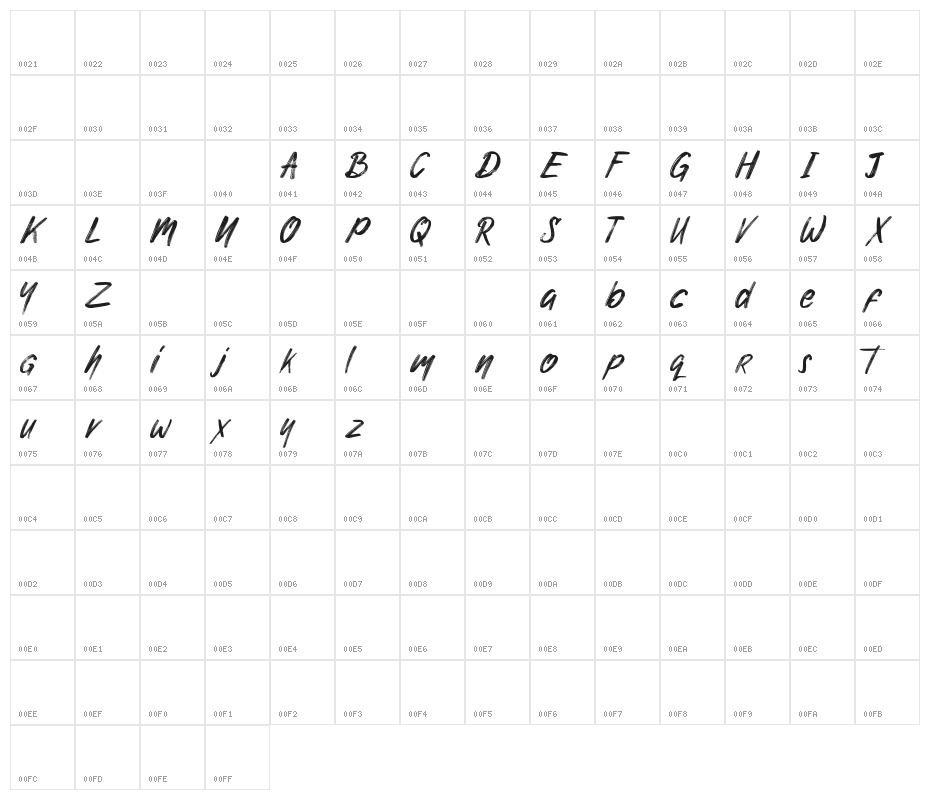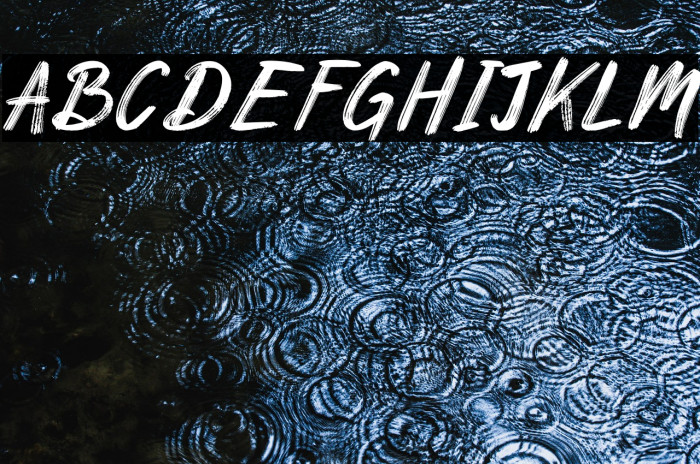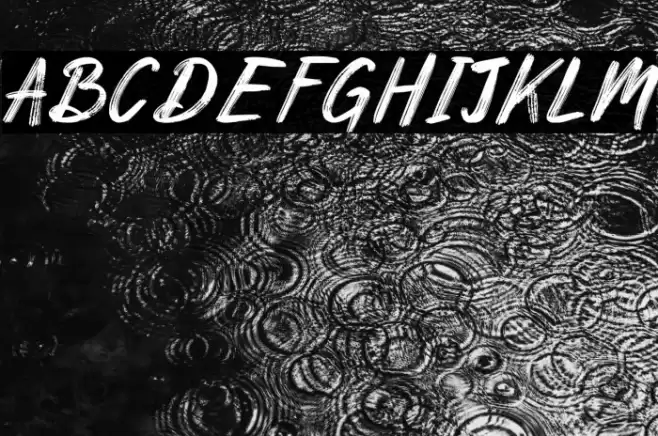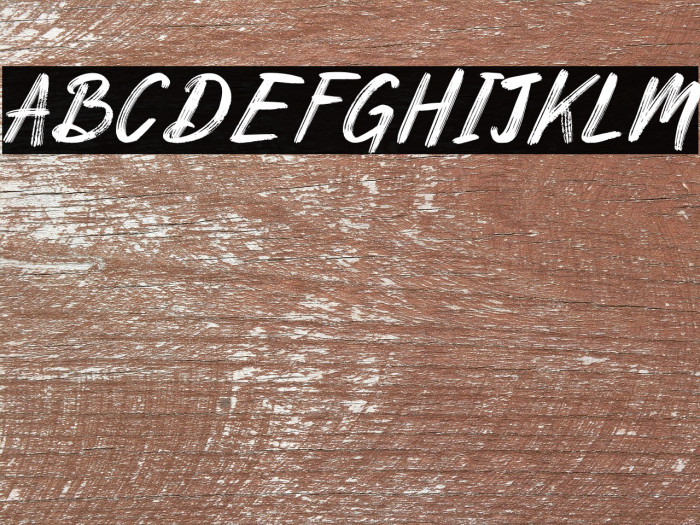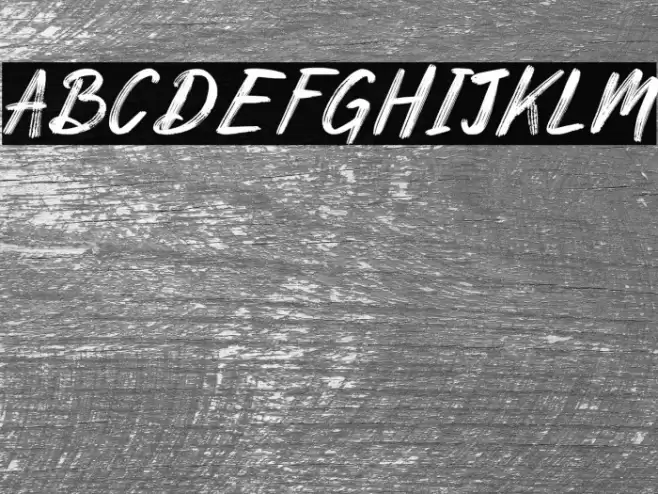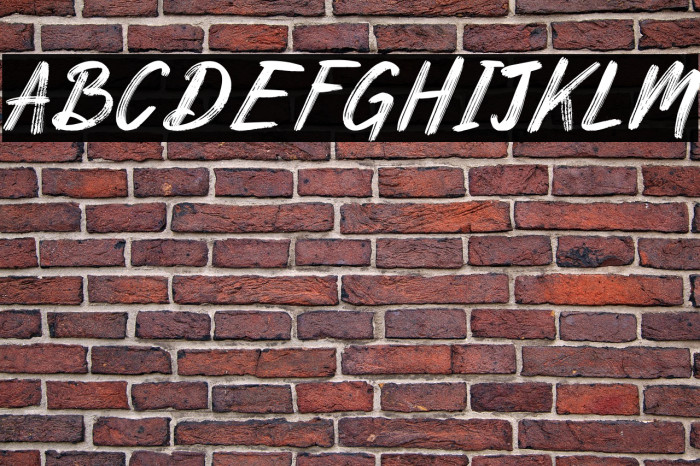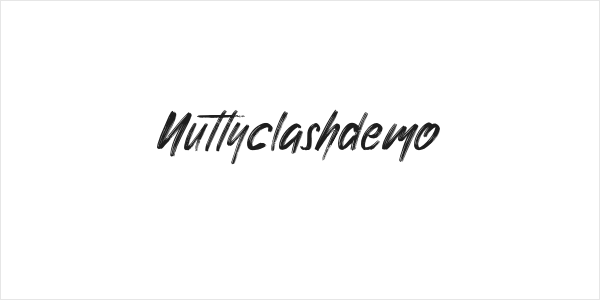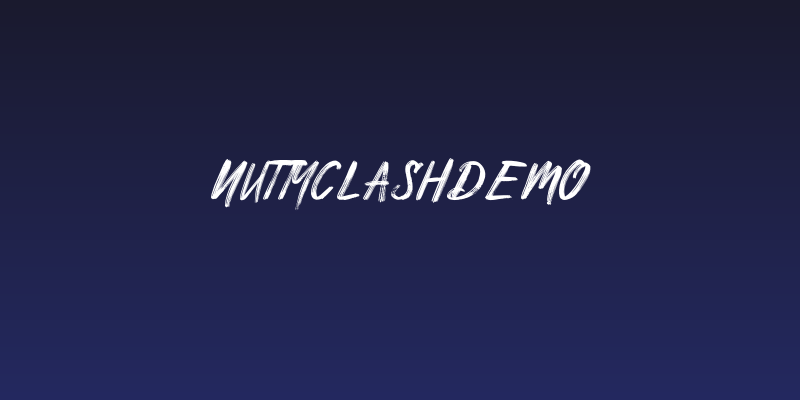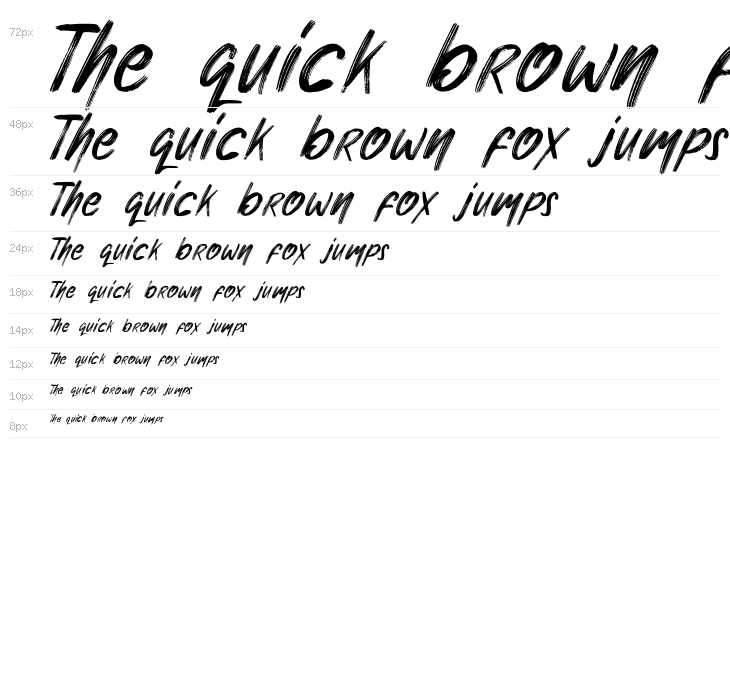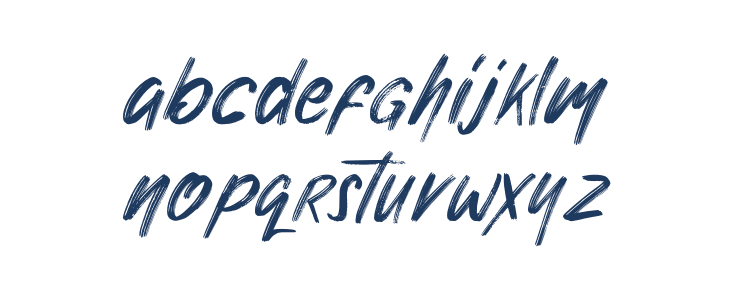
Nuttyclashdemo Font
Nuttyclashdemo Description
This font features a dynamic and energetic brush script style, characterized by its bold, sweeping strokes and textured appearance. The letters are slightly slanted, giving a sense of movement and fluidity. The uppercase and lowercase letters maintain a consistent style, with a rough, hand-drawn texture that adds a casual and artistic flair. The font's unique brush strokes create a sense of depth and dimension, making it stand out in any design. The numbers and special characters follow the same stylistic approach, ensuring a cohesive look across all elements.
| Proposed Projects | Ideal for creative projects such as posters, branding, packaging, and social media graphics where a bold, artistic statement is desired. |